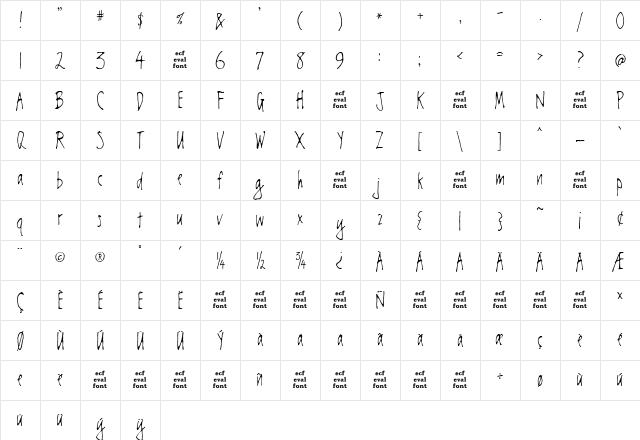
chester eval Regular
Design Context for chester eval
chester eval is a composed and adaptable typeface that performs quietly and consistently across a wide range of design contexts.